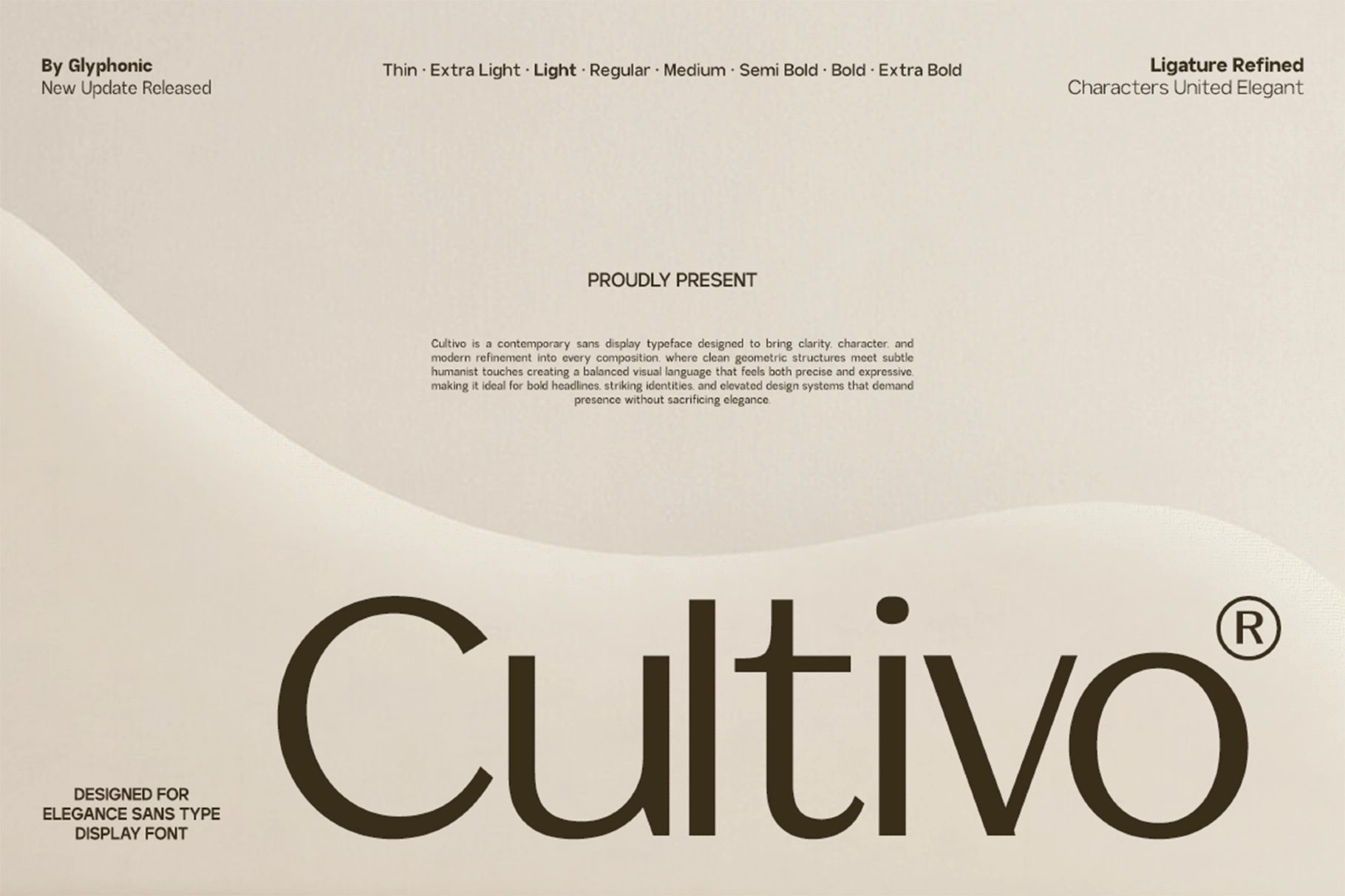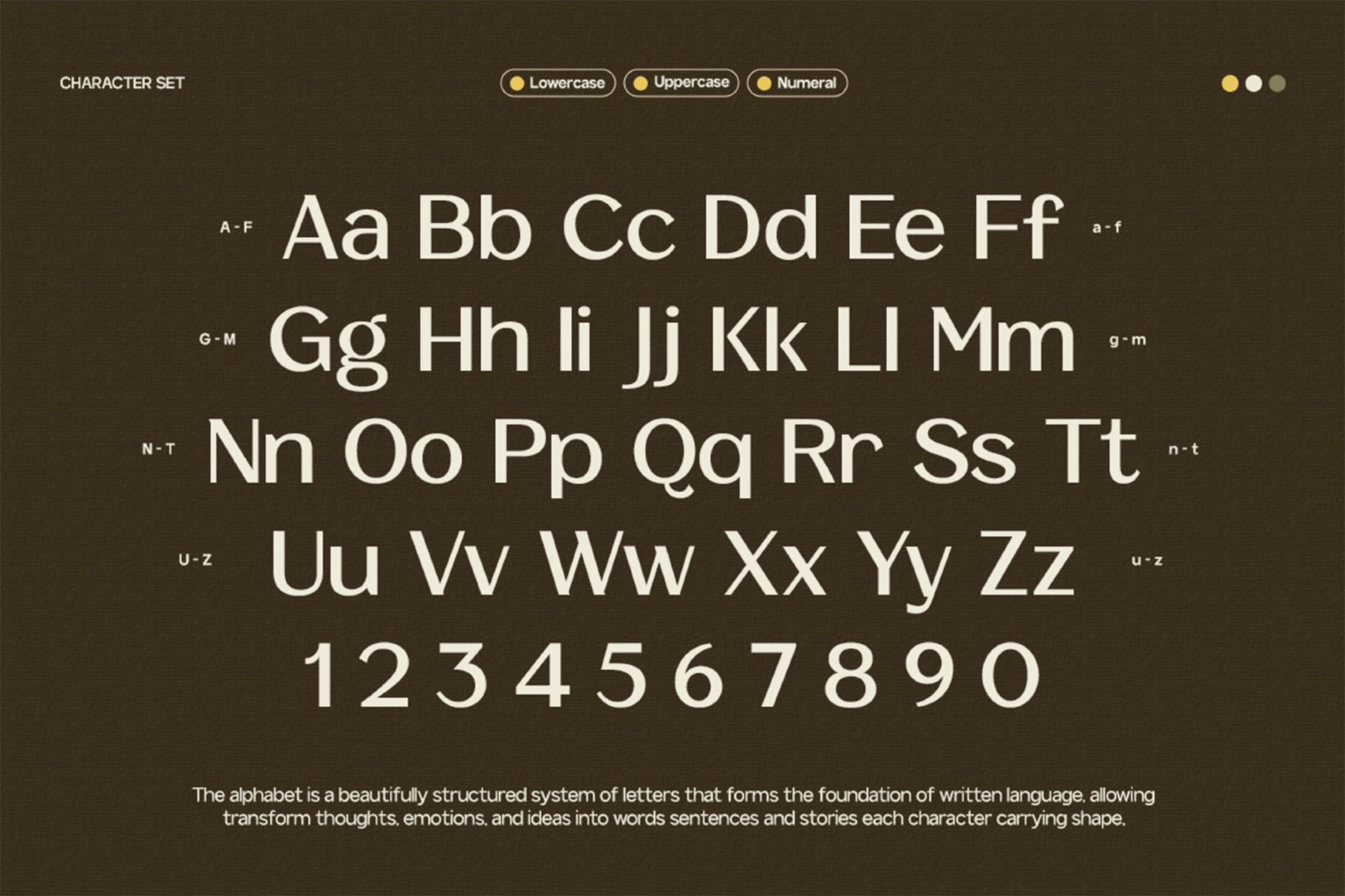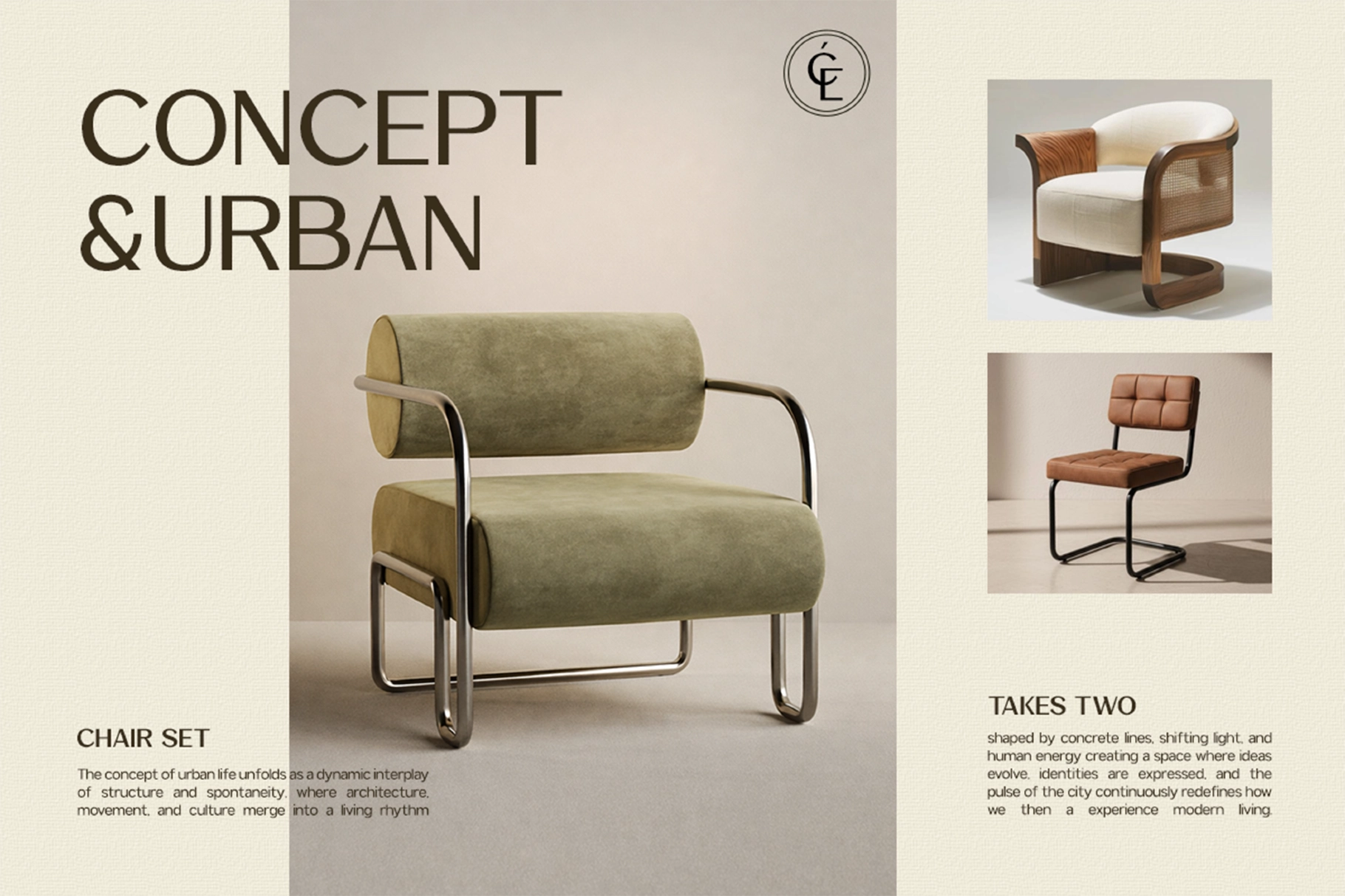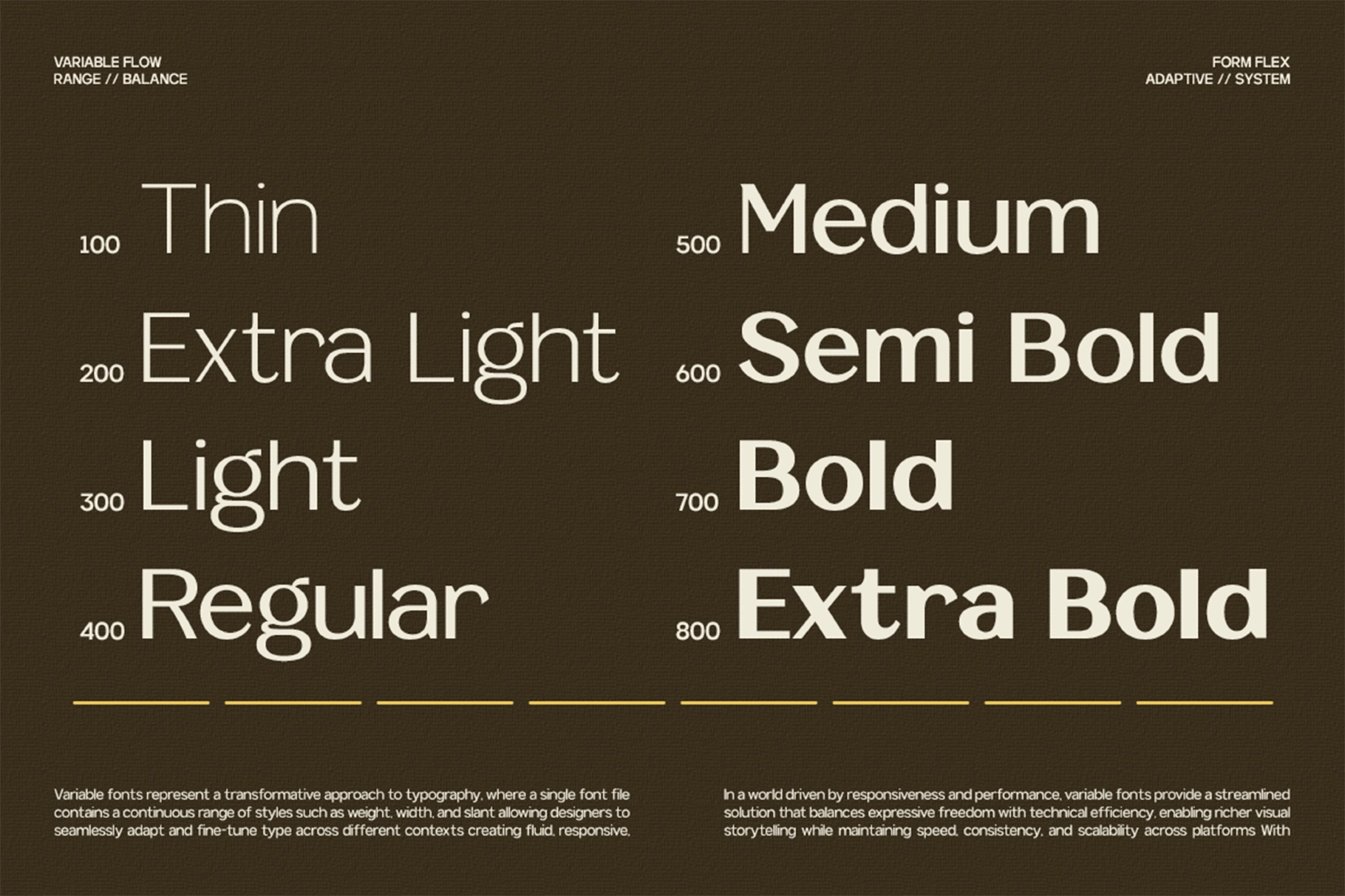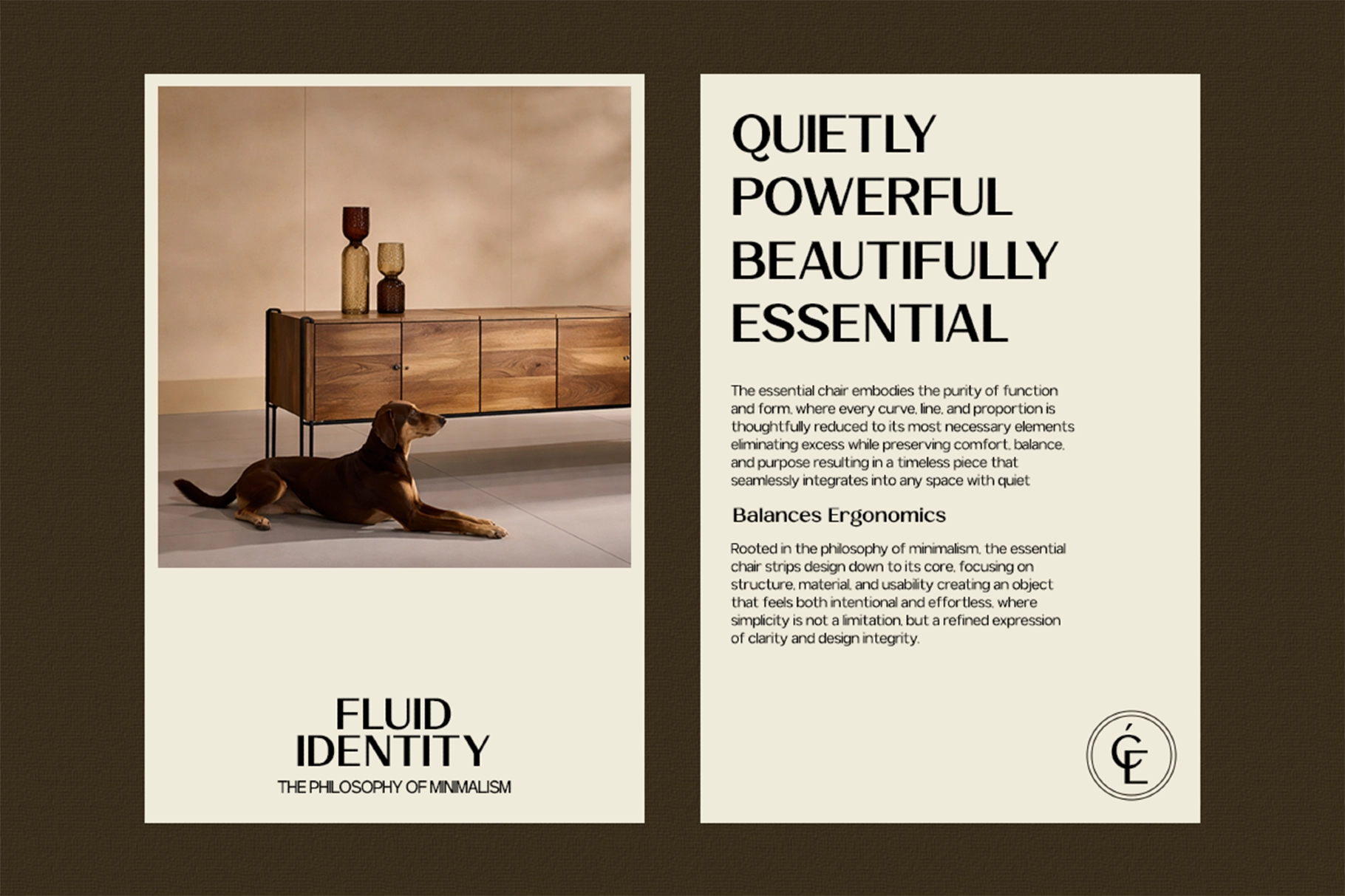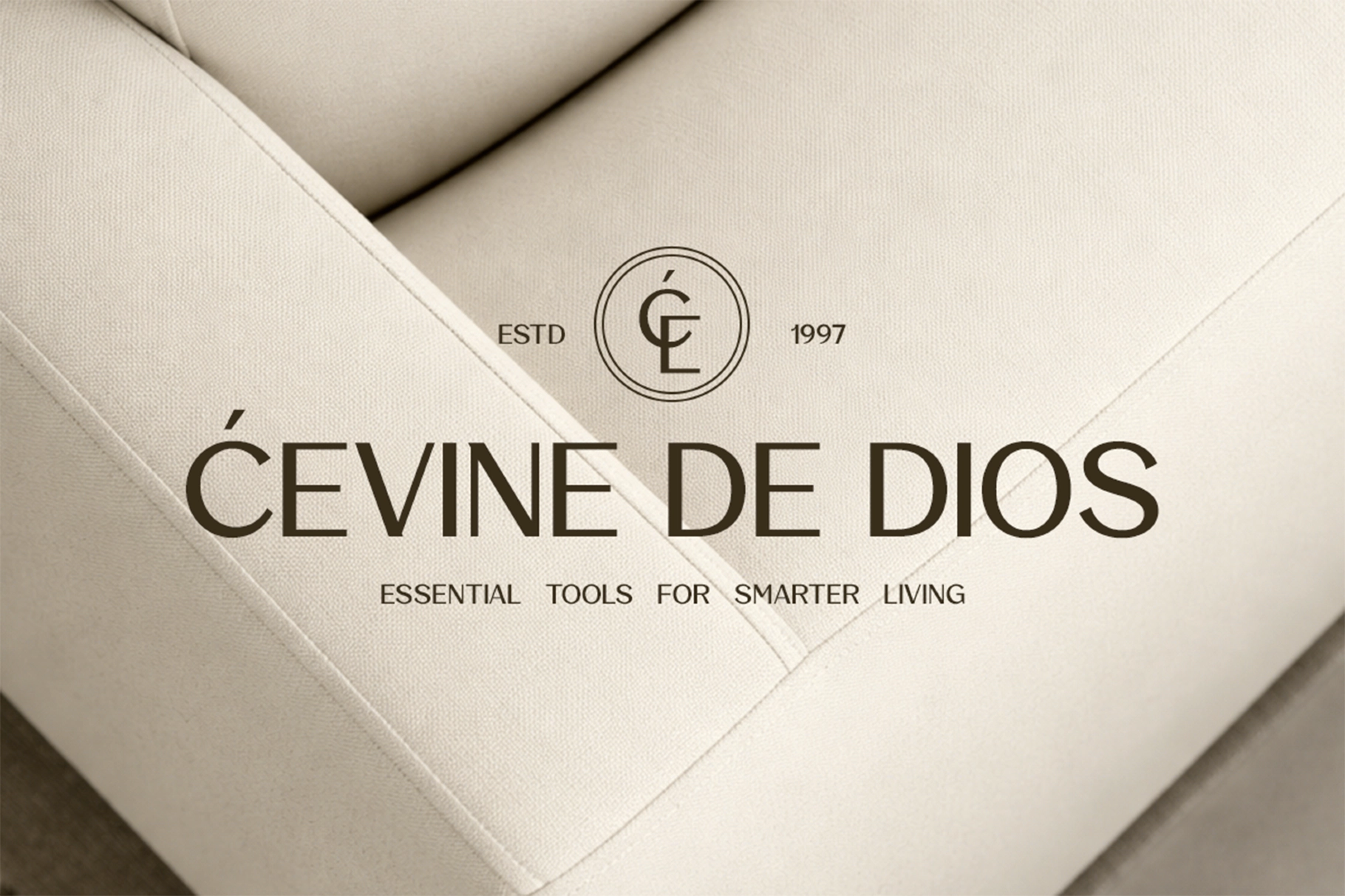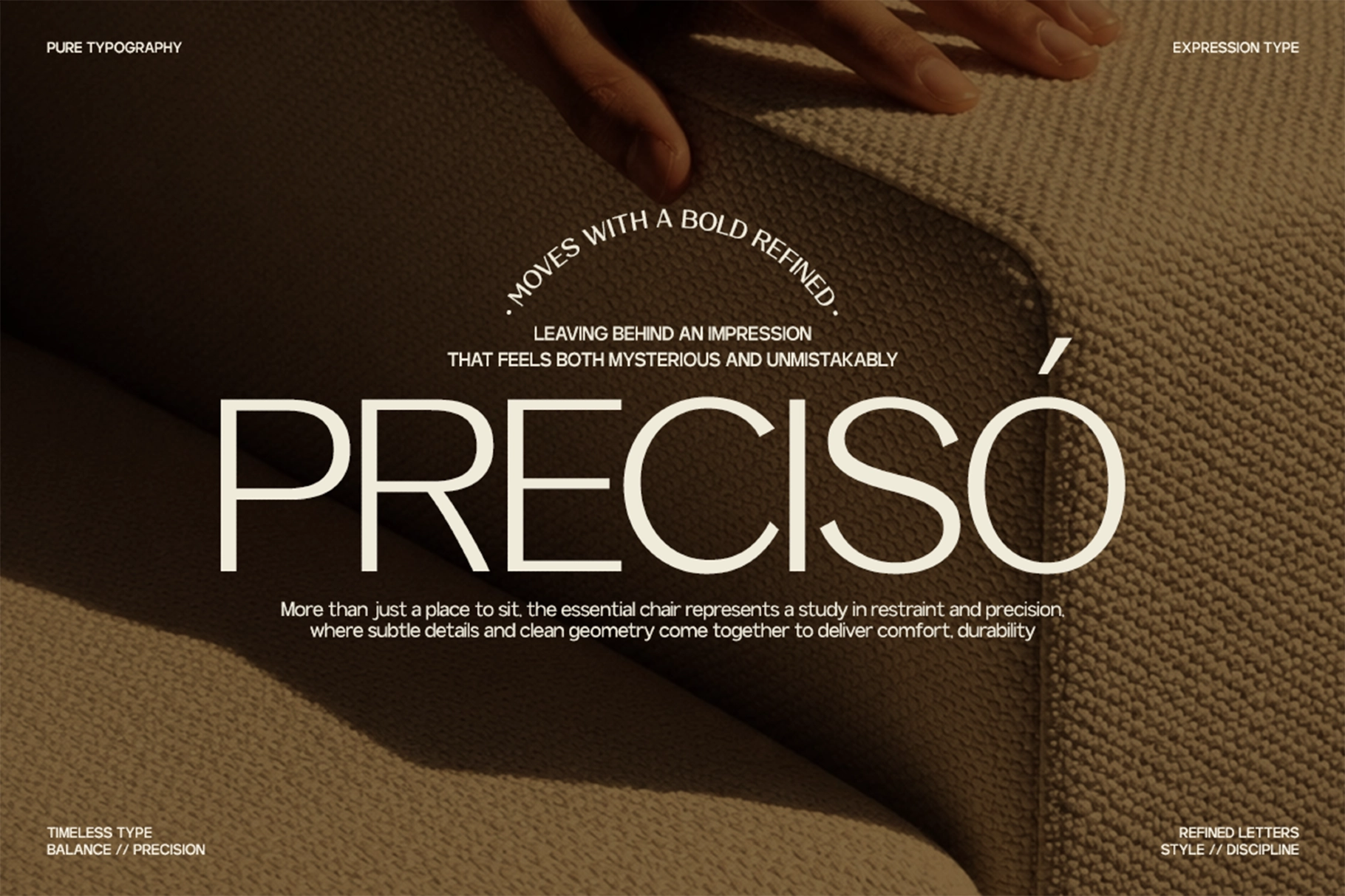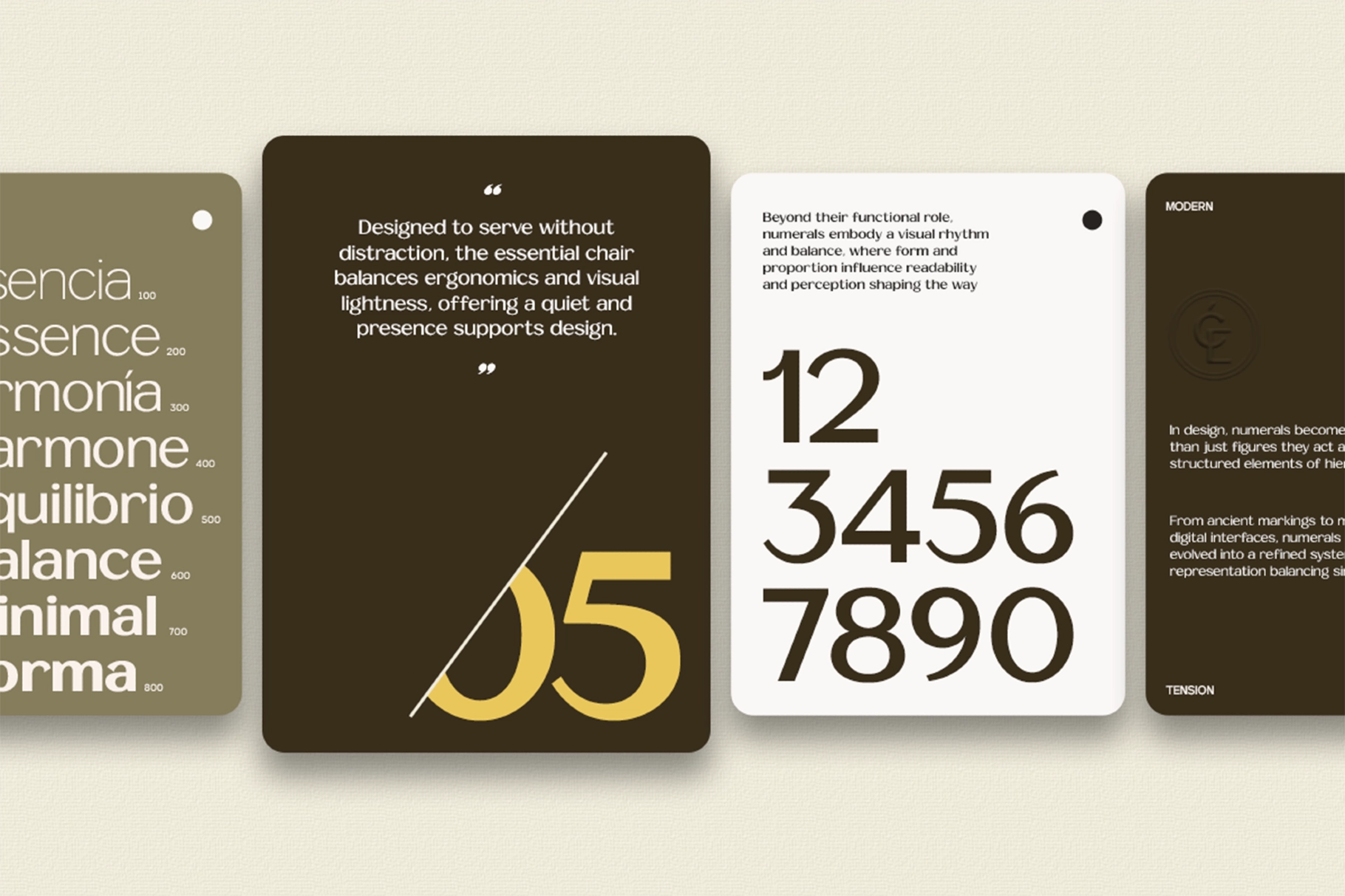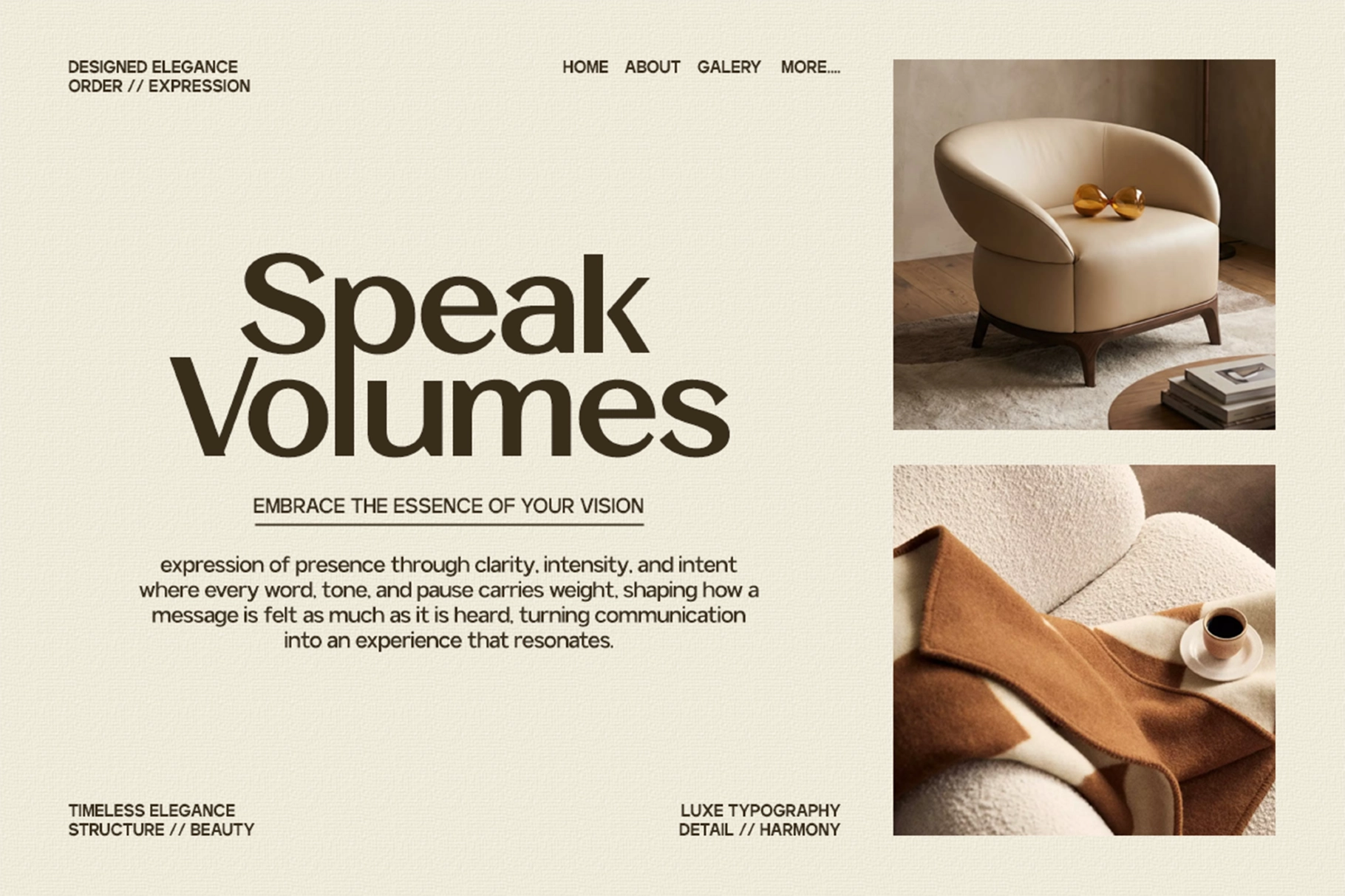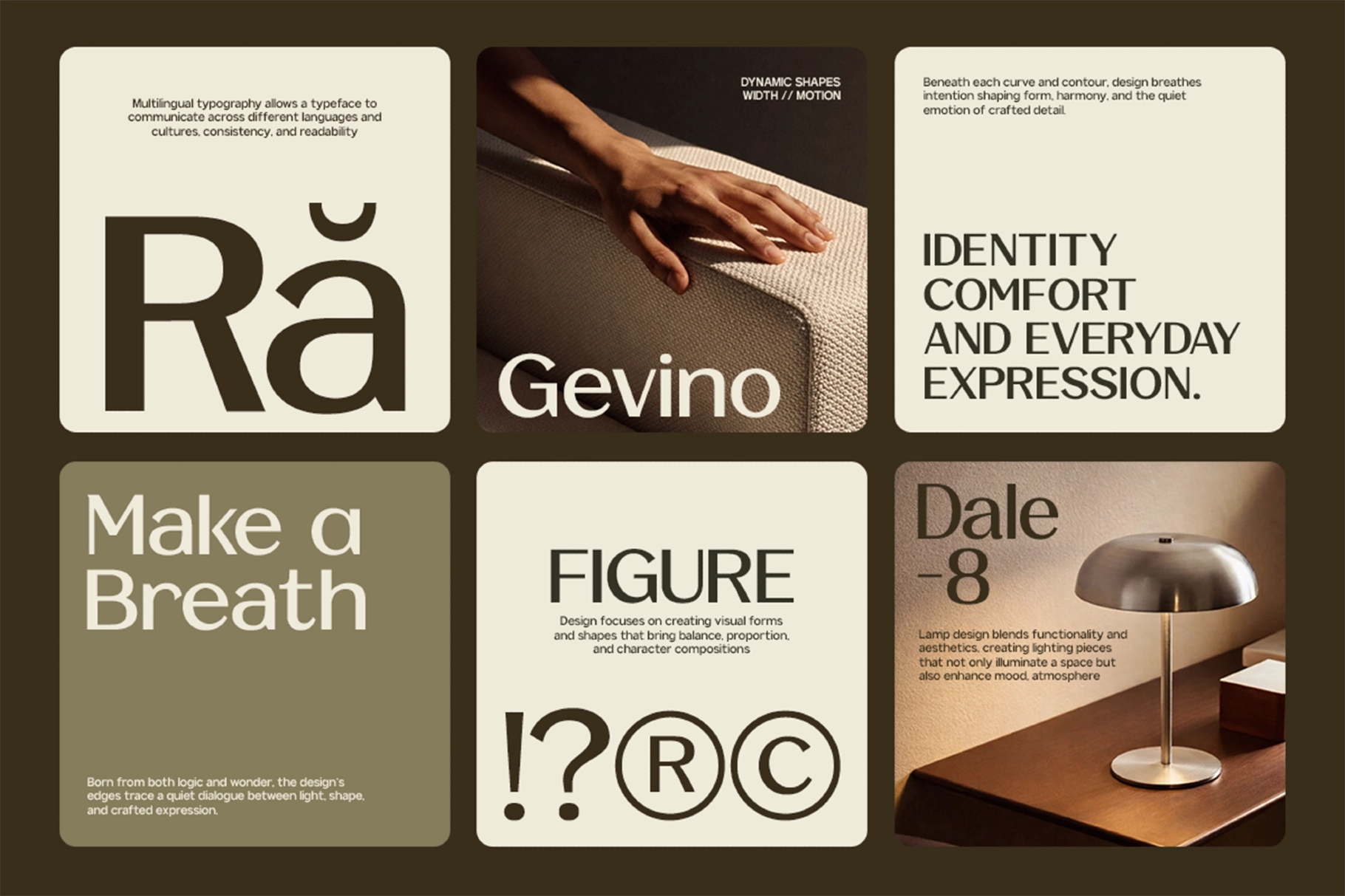
GC Cultivo - Modern Elegant Sans Font
The font is an elegant sans serif family with clean proportions, soft curves, and a calm editorial presence. Its lighter weights are airy and refined, while the heavier cuts bring a polished headline voice with clear hierarchy and quiet authority.
Use Cultivo for luxury branding, fashion editorials, interior design identities, portfolio websites, magazine headlines, product packaging, beauty campaigns, gallery posters, social media layouts, lookbooks, restaurant menus, art direction decks, and more. The refined ligatures give display text a connected, tailored rhythm without making the typography look overworked.
- 8 weights: Thin - Extra Bold
- Refined Ligatures
- Multilingual Support for 170+ Languages